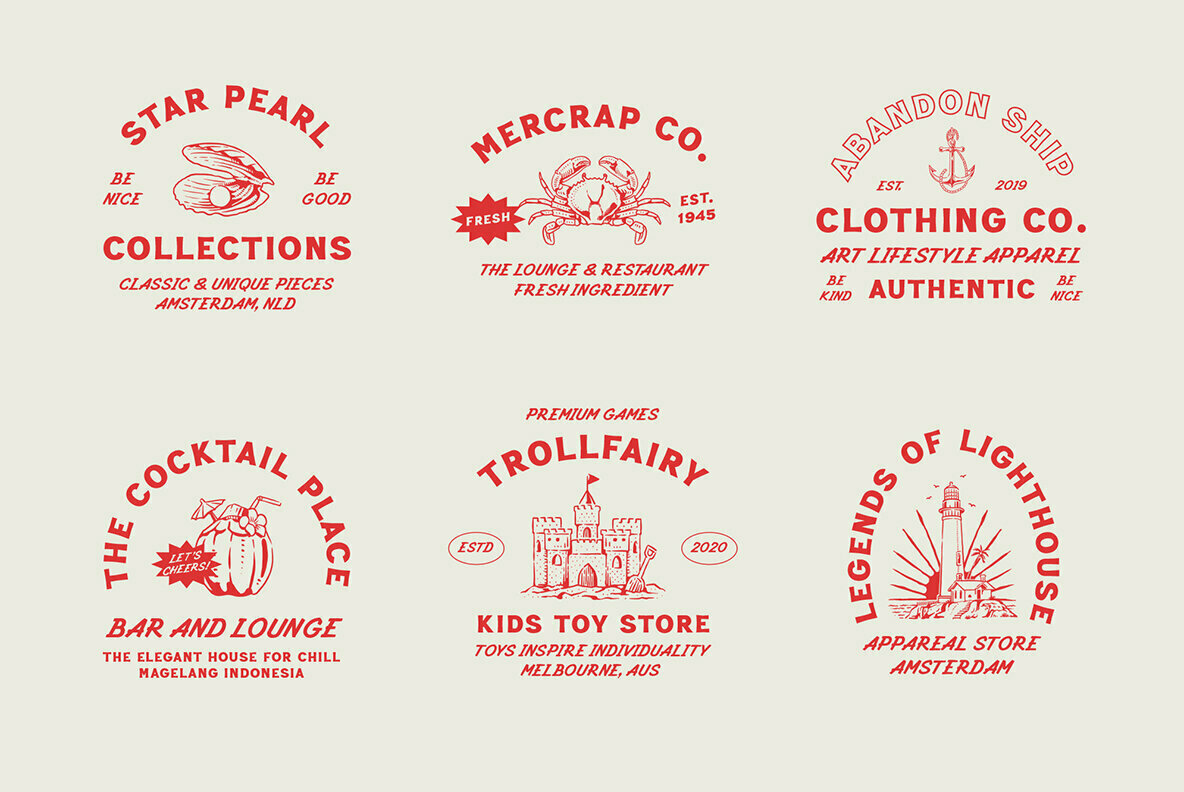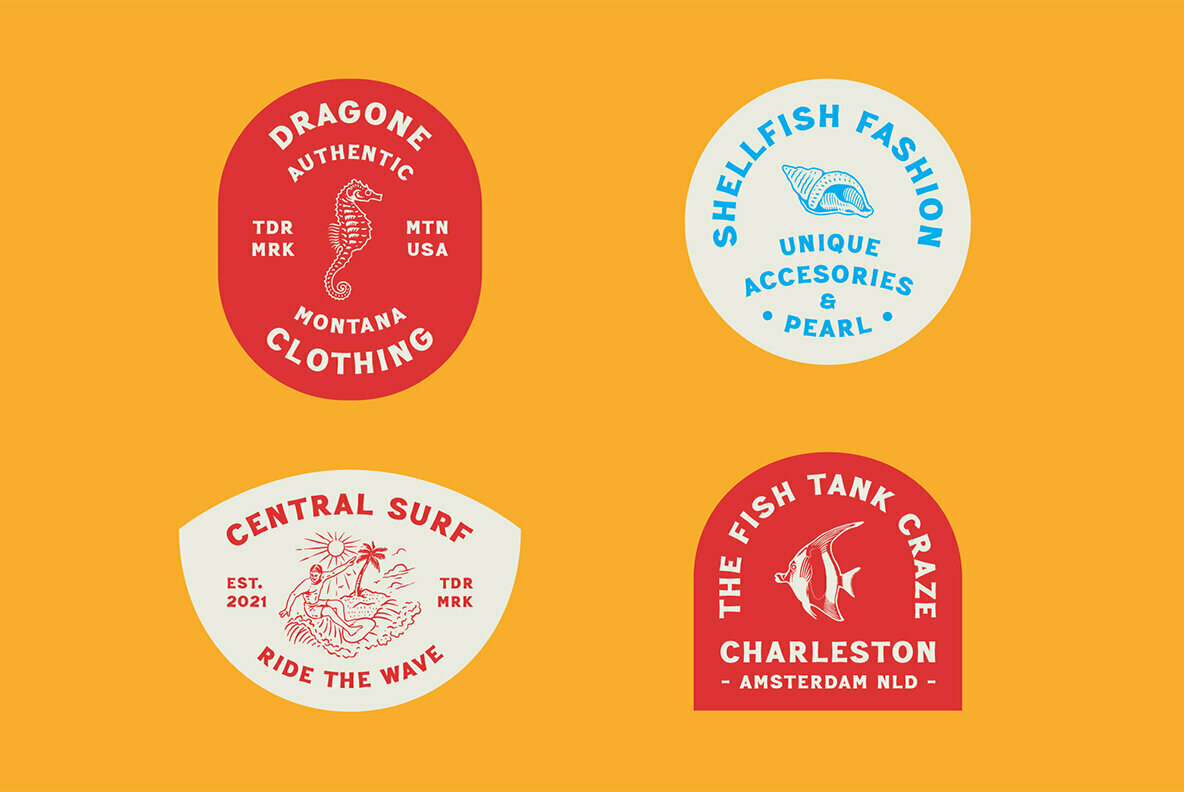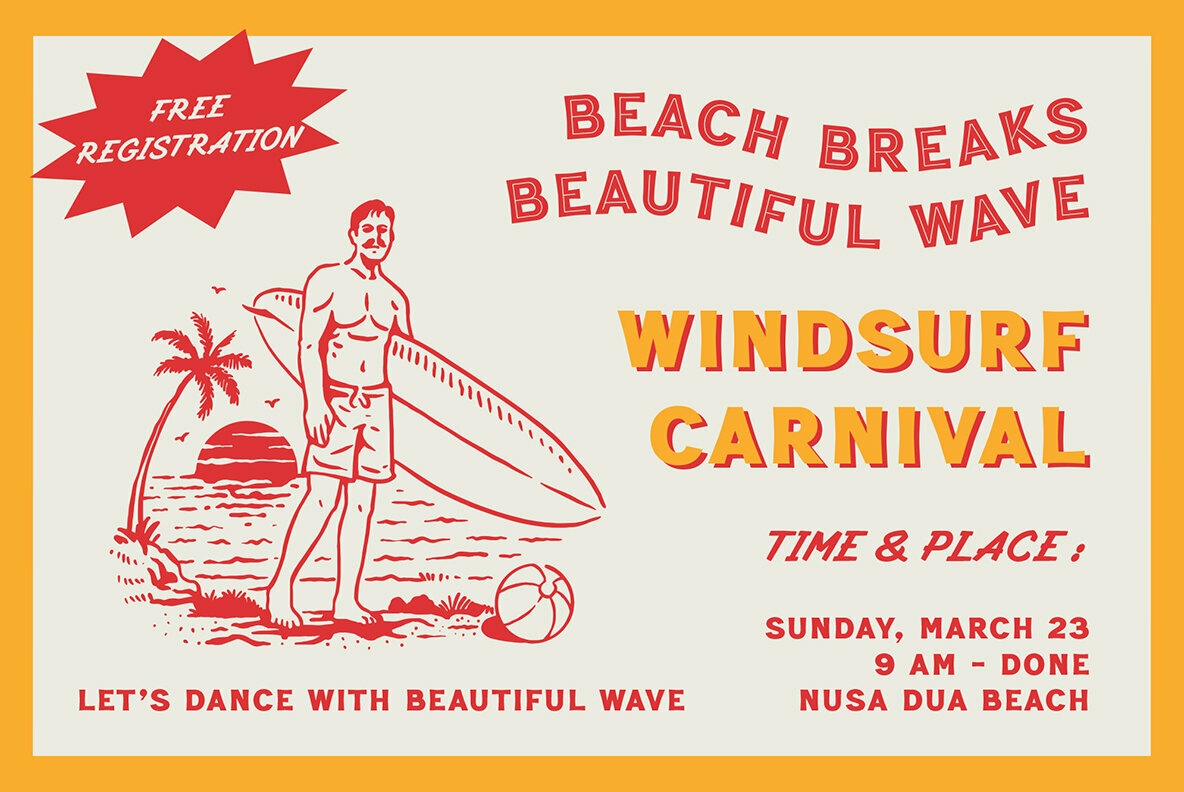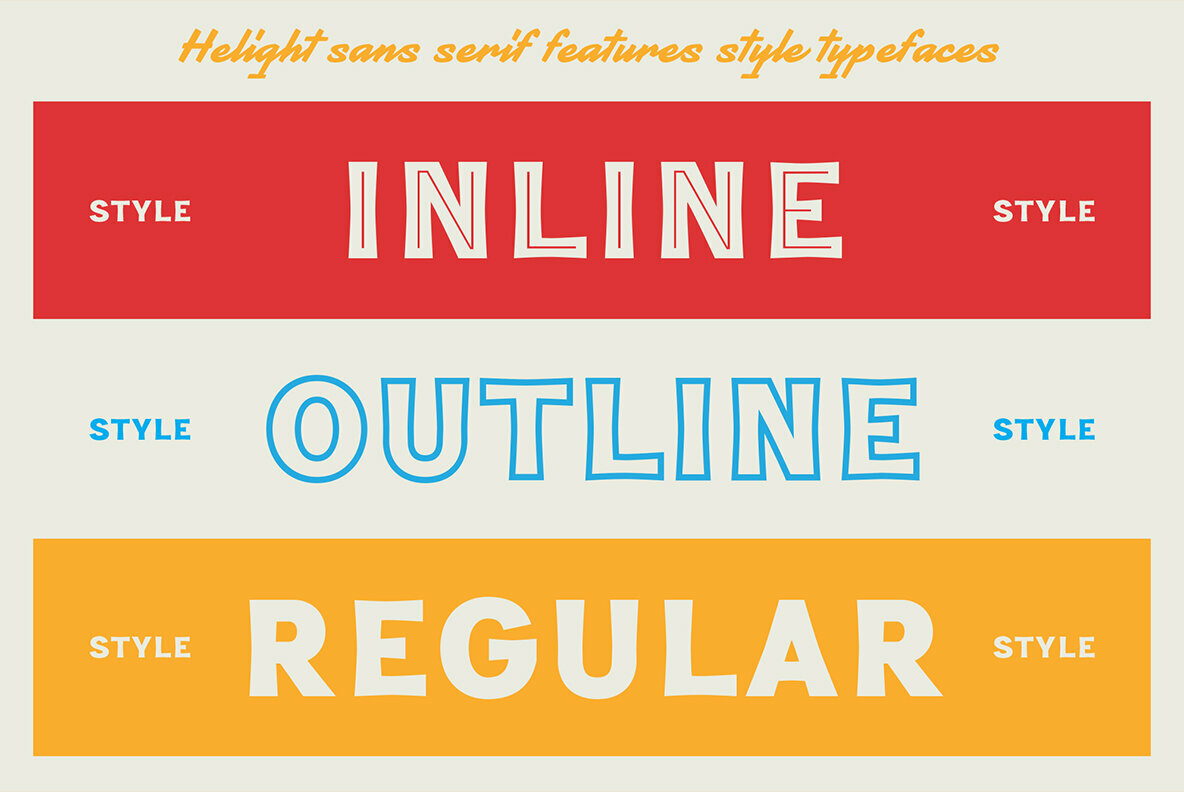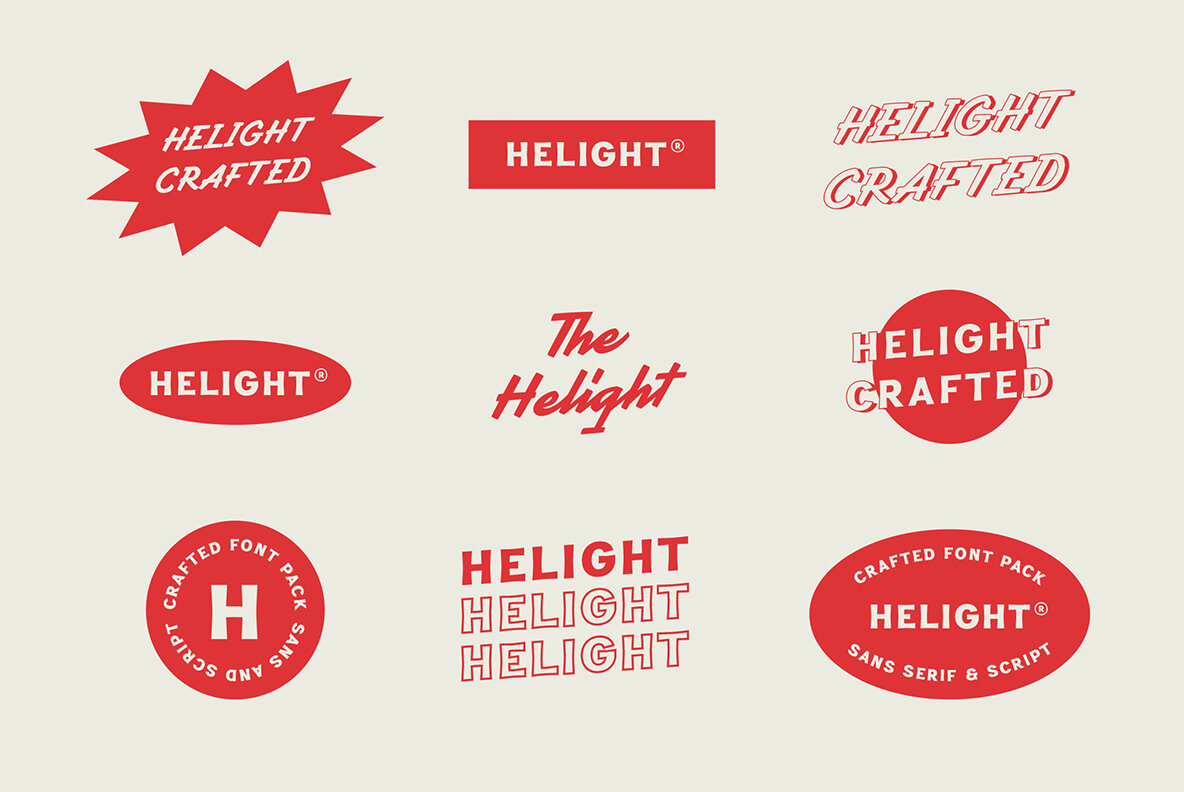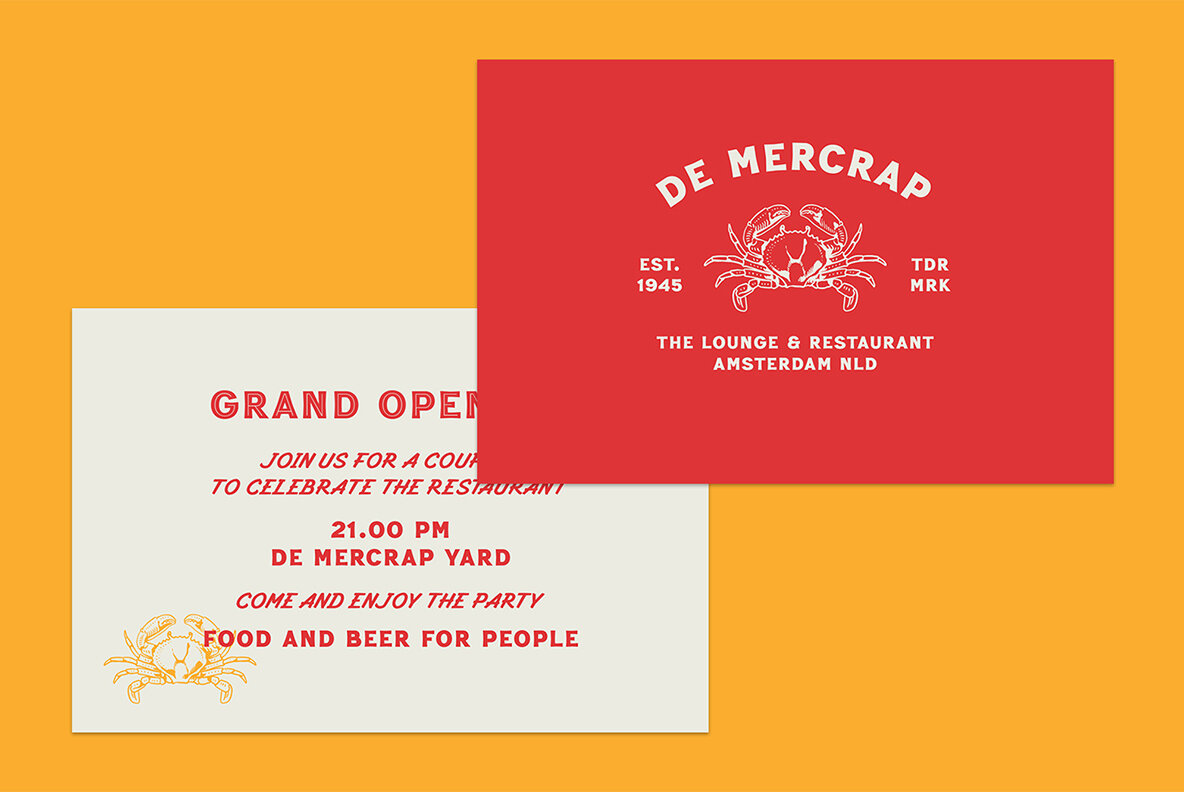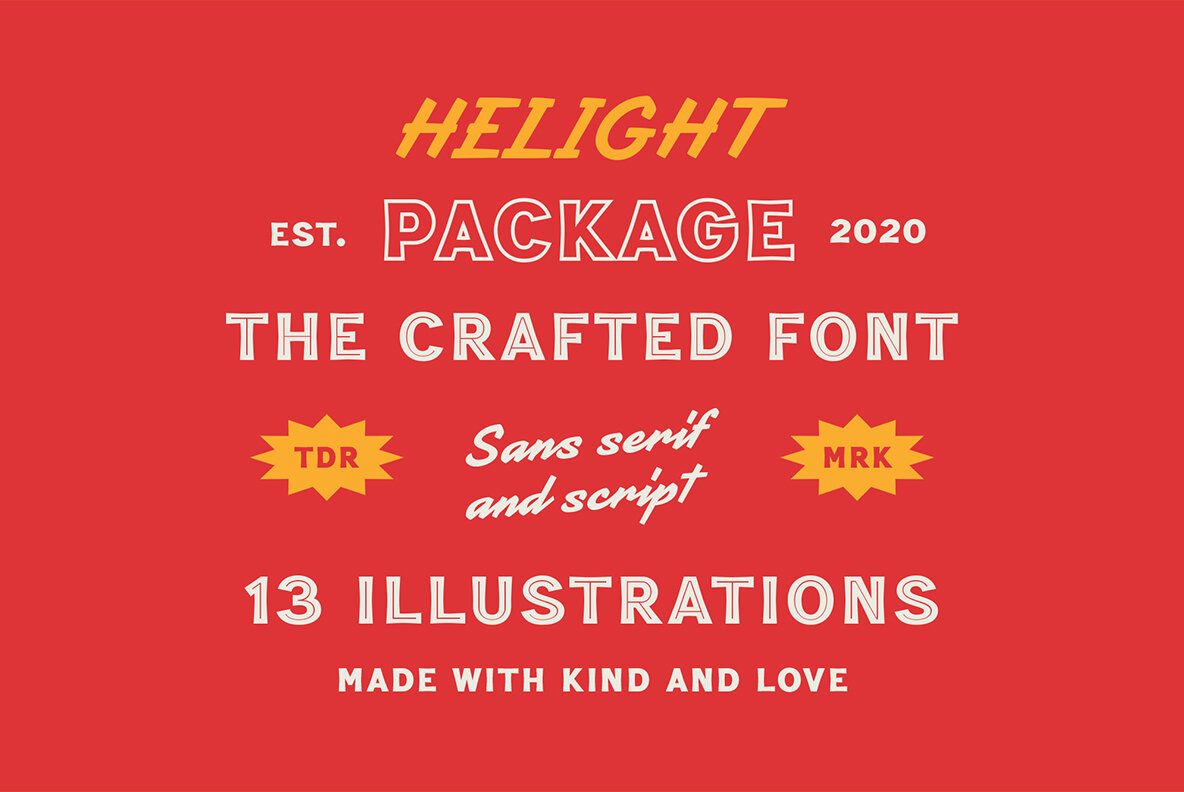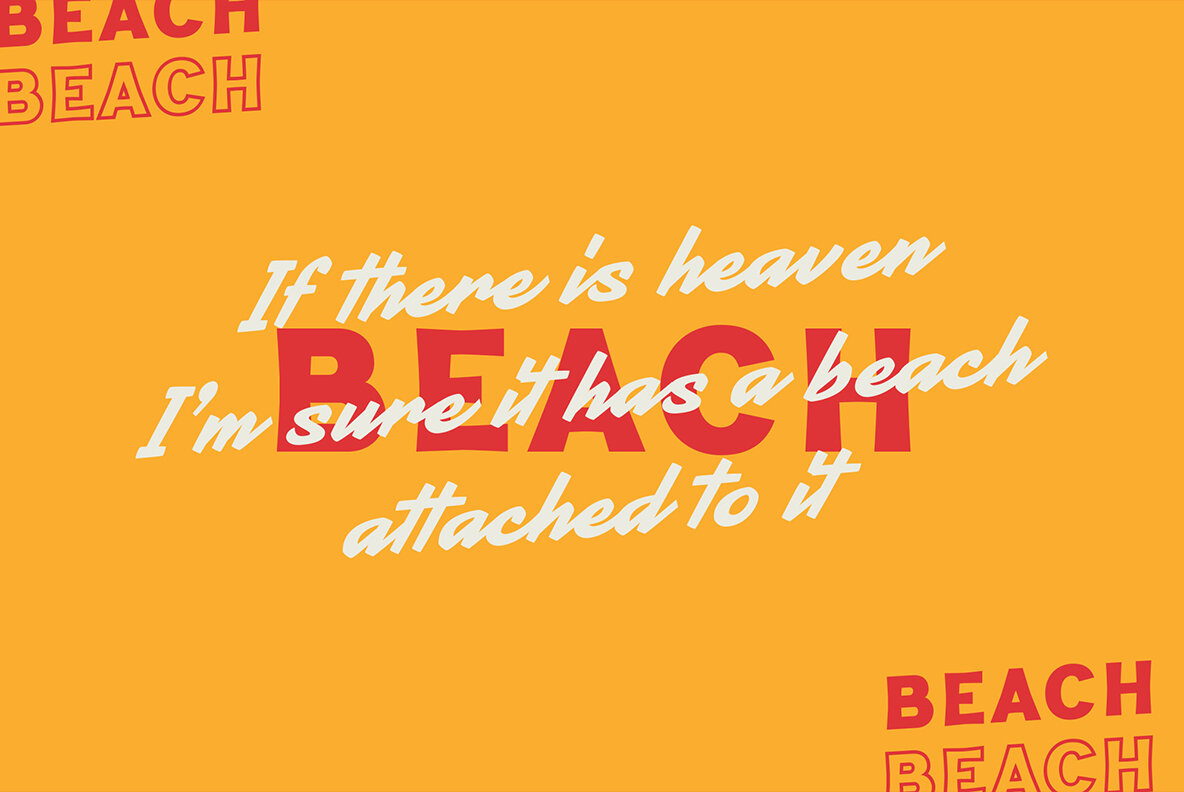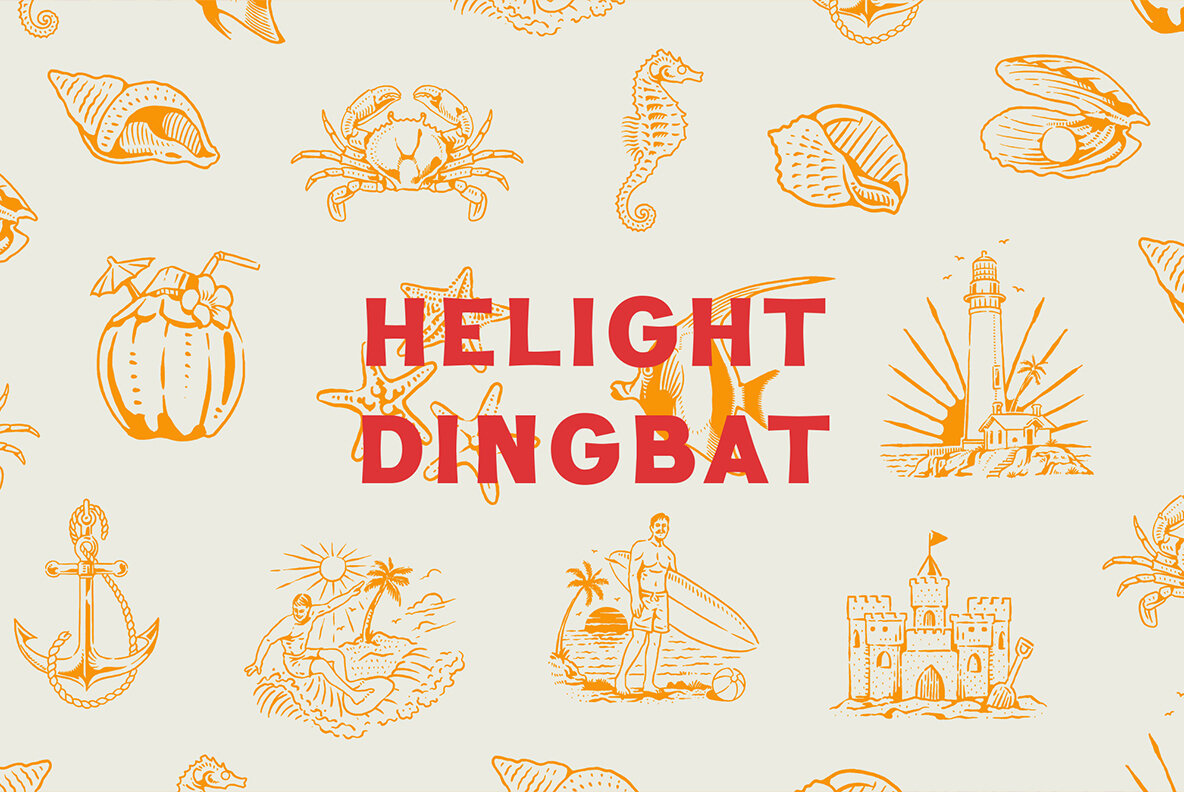
Helight Font
The font collection is called "Helight", it is a display font with crafted themes. These collections contain sans serif, script and dingbat. The sans serif comes with 3 style typefaces (regular, inline and outline). This product give more extras illustration pack (13 hand-drawn illustrations). The Helight matches apply in some designs such as the logotype, poster, label, badge, packaging, apparel, branding, and more custom design.
Helight features:
- 3 style typefaces in sans serif (regular, inline and outline)
- Uppercase, lowercase, numeral, symbol, punctuation, ligatures in script
- All-caps, numeral, symbol and punctuation in sans serif